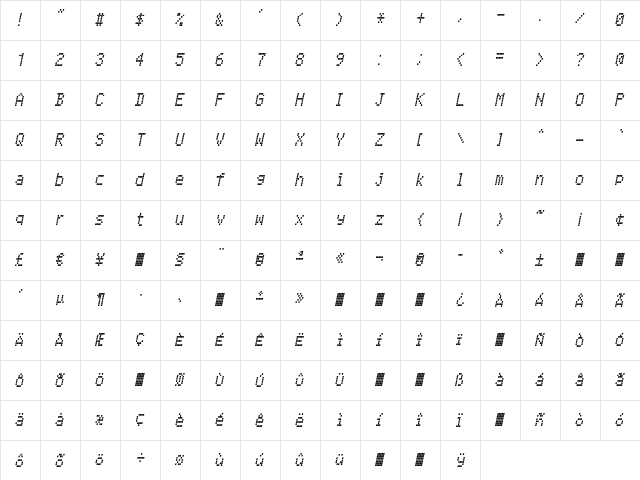
CallNineS-Italic Regular
Design Context for CallNineS-Italic Typeface
CallNineS-Italic takes a measured approach to typography — its balanced proportions and neutral character make it a reliable workhorse for both digital and print work. The dynamic lean of this cut emphasises speed and emphasis in any layout.
Pro Tip: Use CallNineS-Italic for emphasis, pull quotes, and subheadings where its slanted energy can add rhythm to the layout.